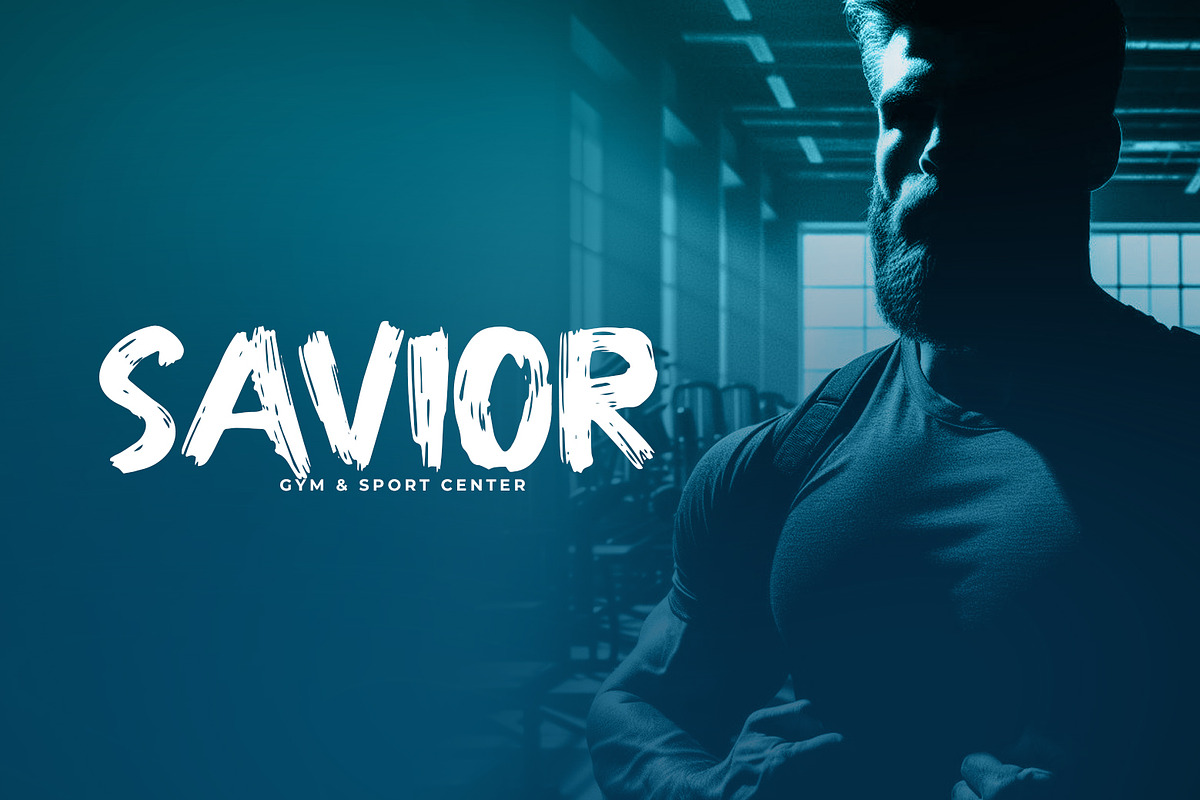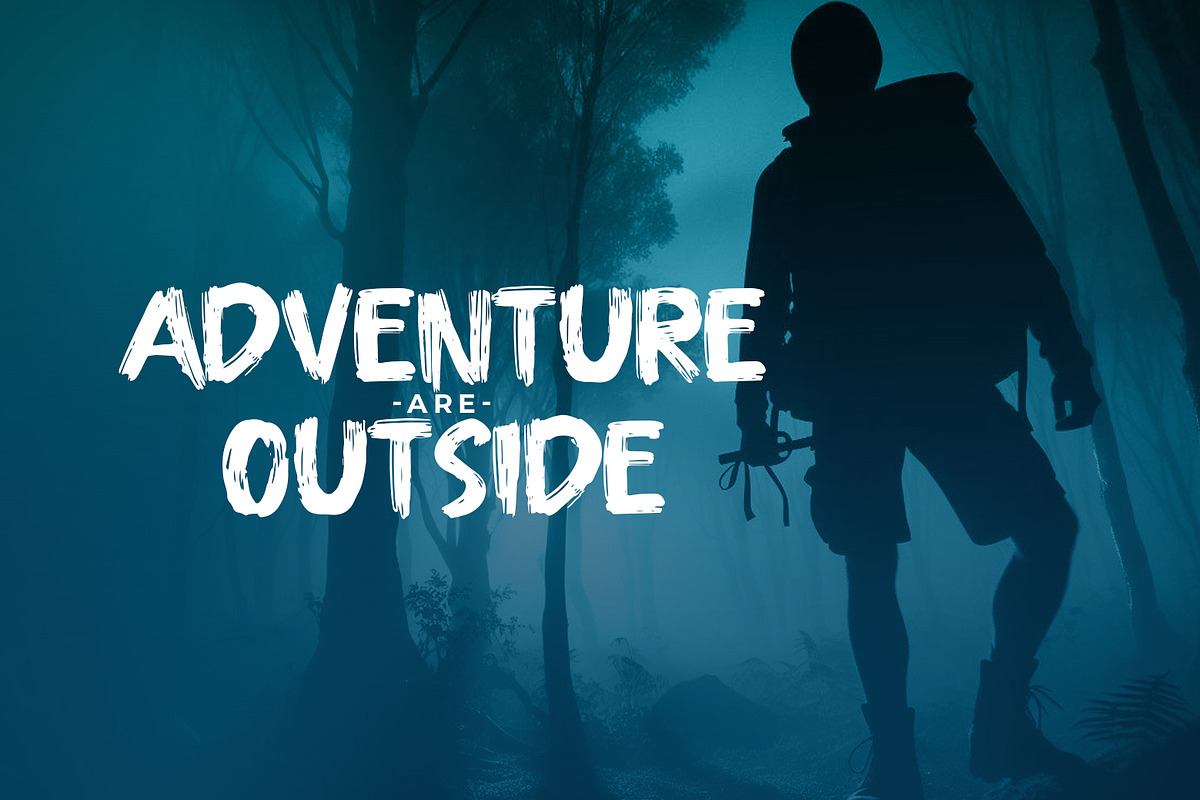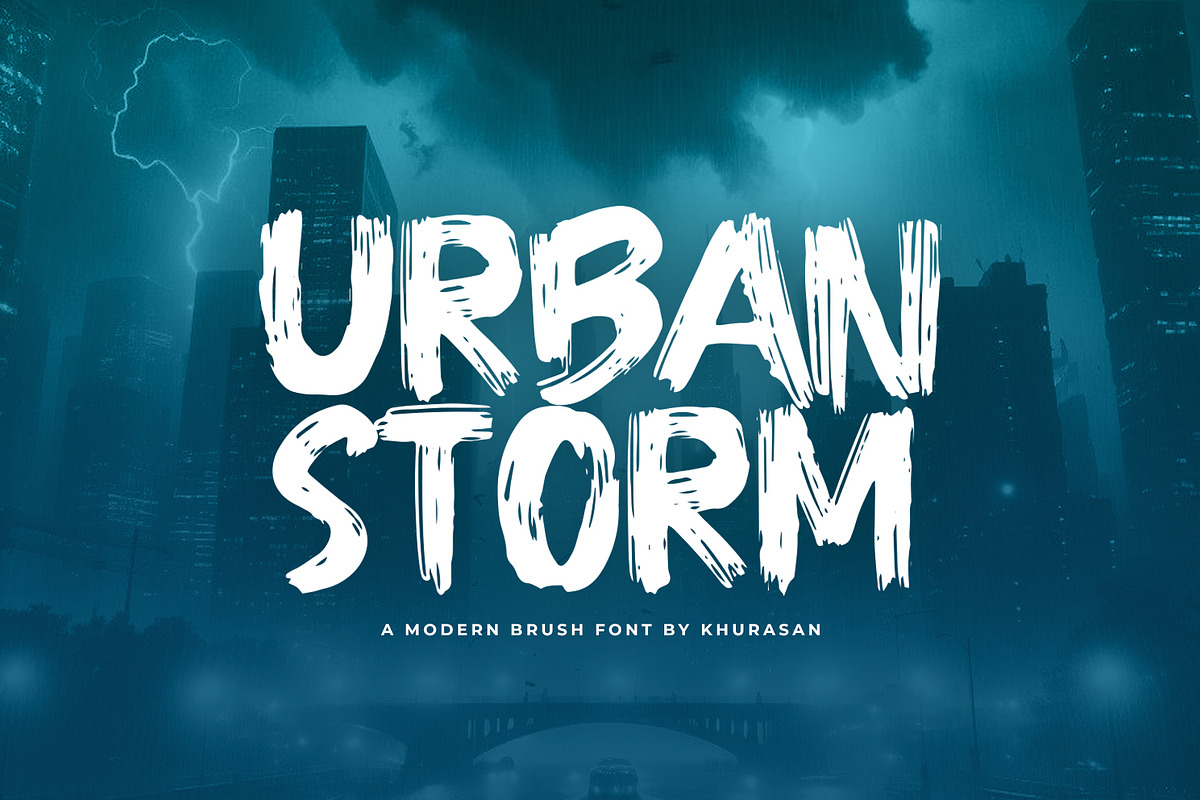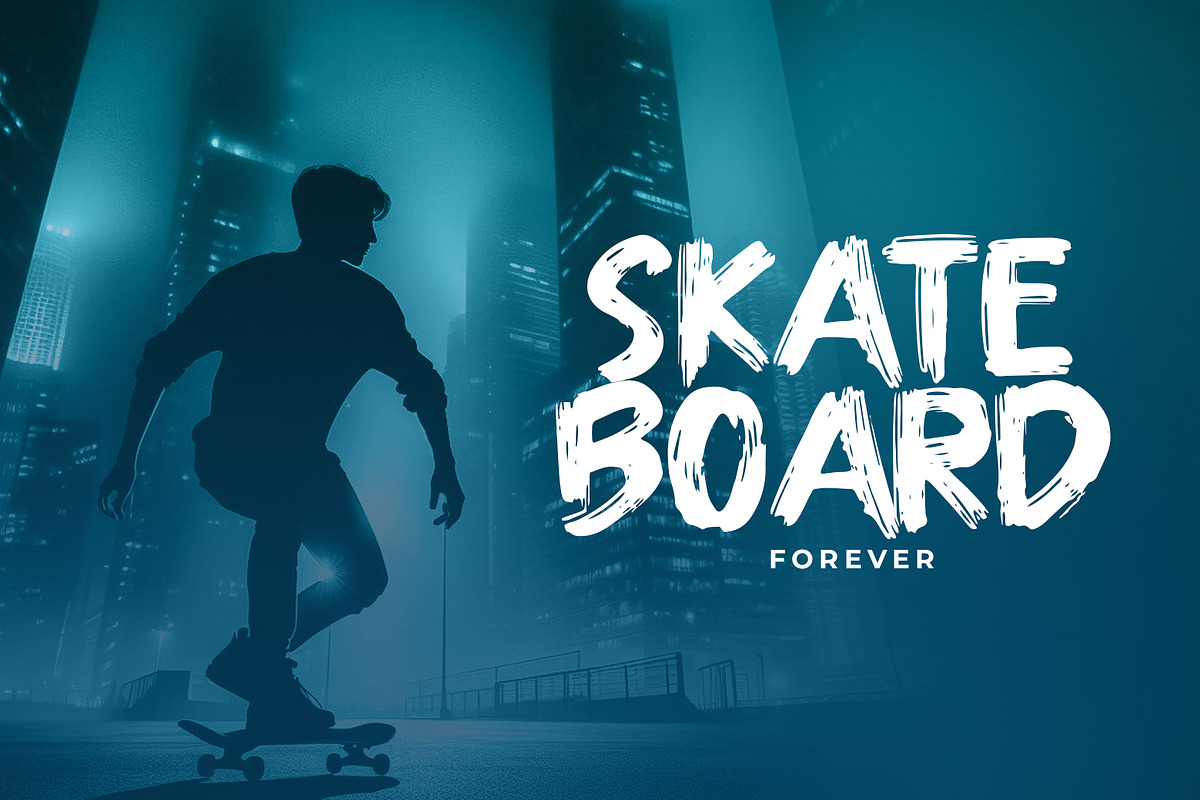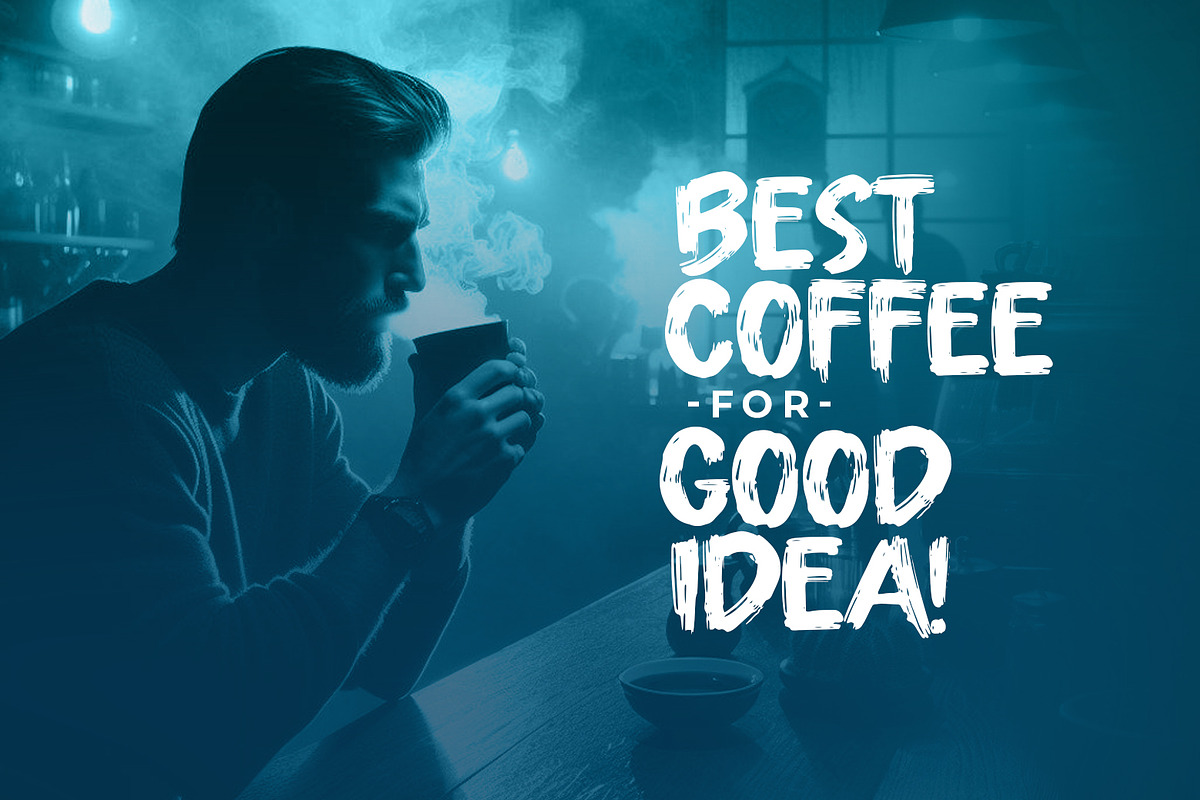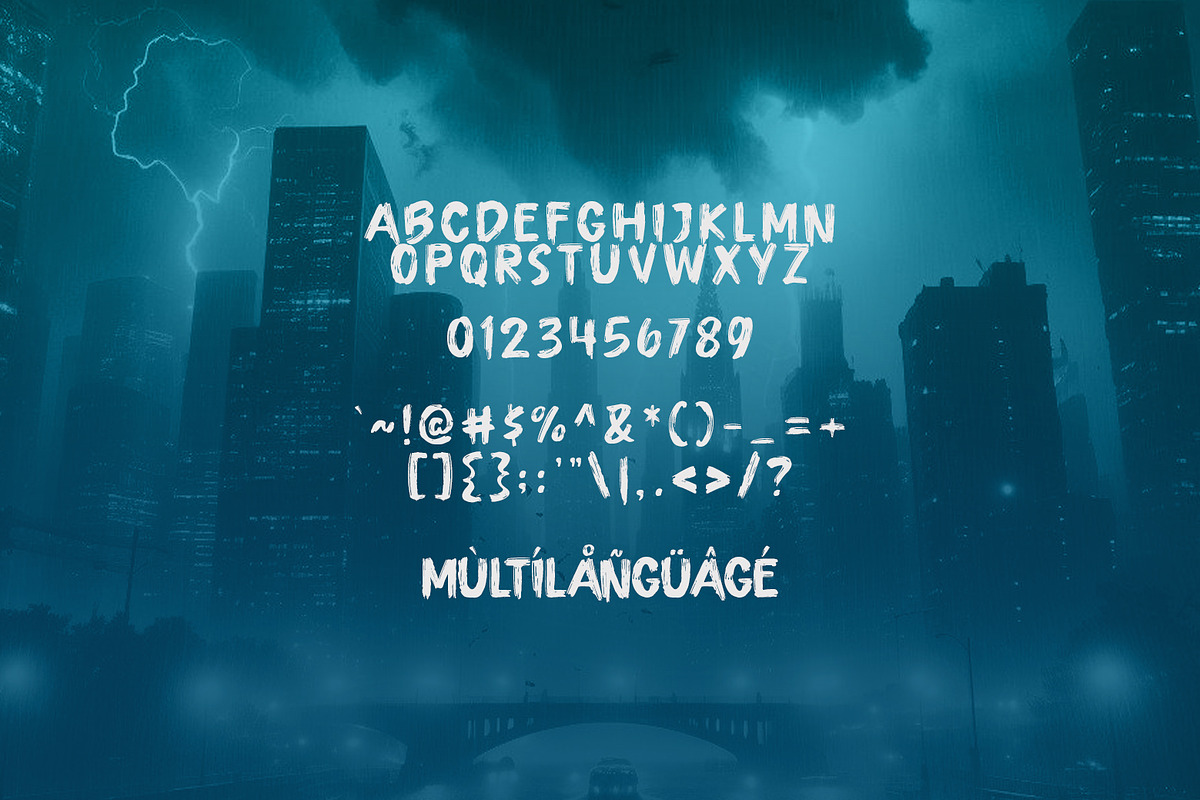
Urban Storm
Urban Storm is a modern brush font. Urban Storm font suitable for logo, branding, greeting card, poster and any design that you create…!
Khurasan